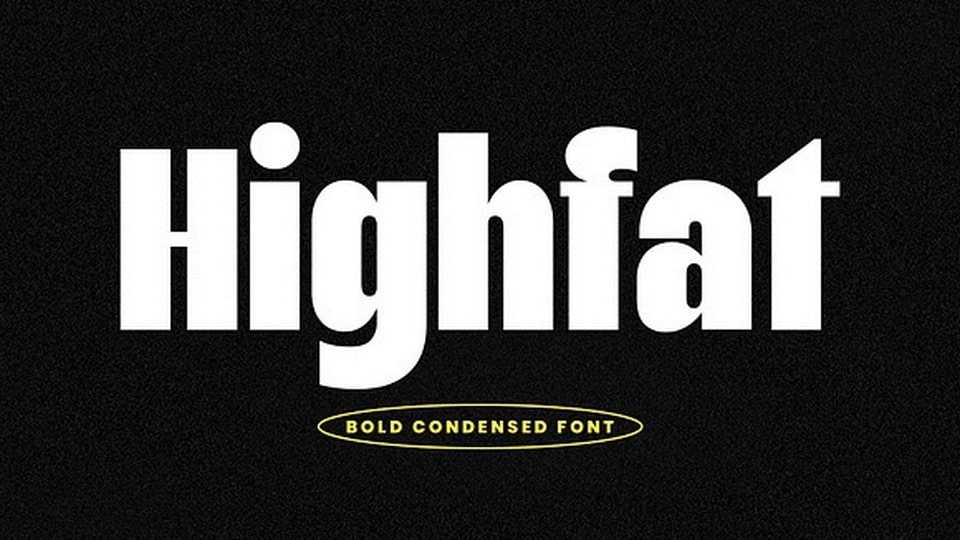
Download Highfat font, a clearly bold condensed typeface, inspired by retro bold typography and modern sans serif styles, seamlessly combined into a unique, fatty condensed font.